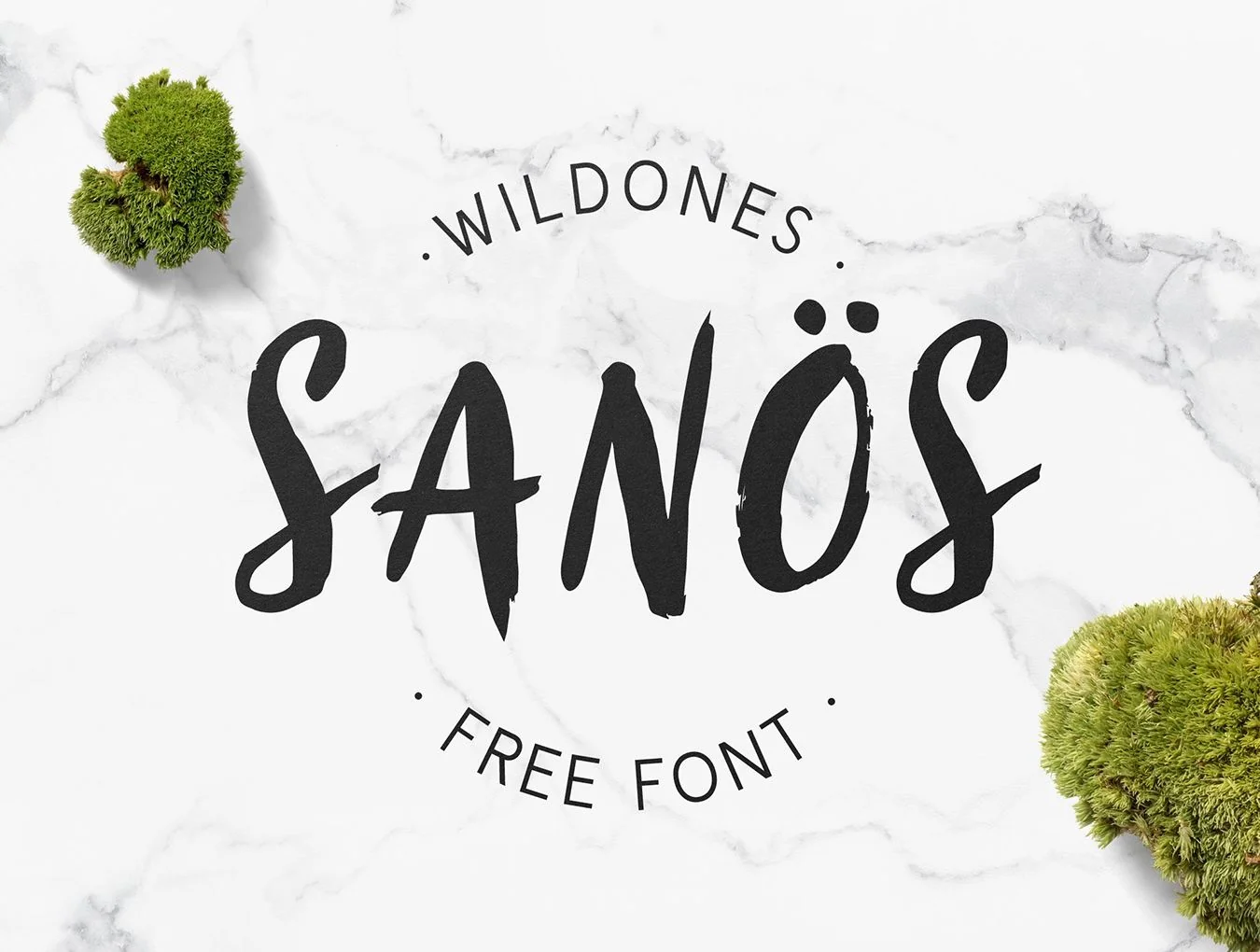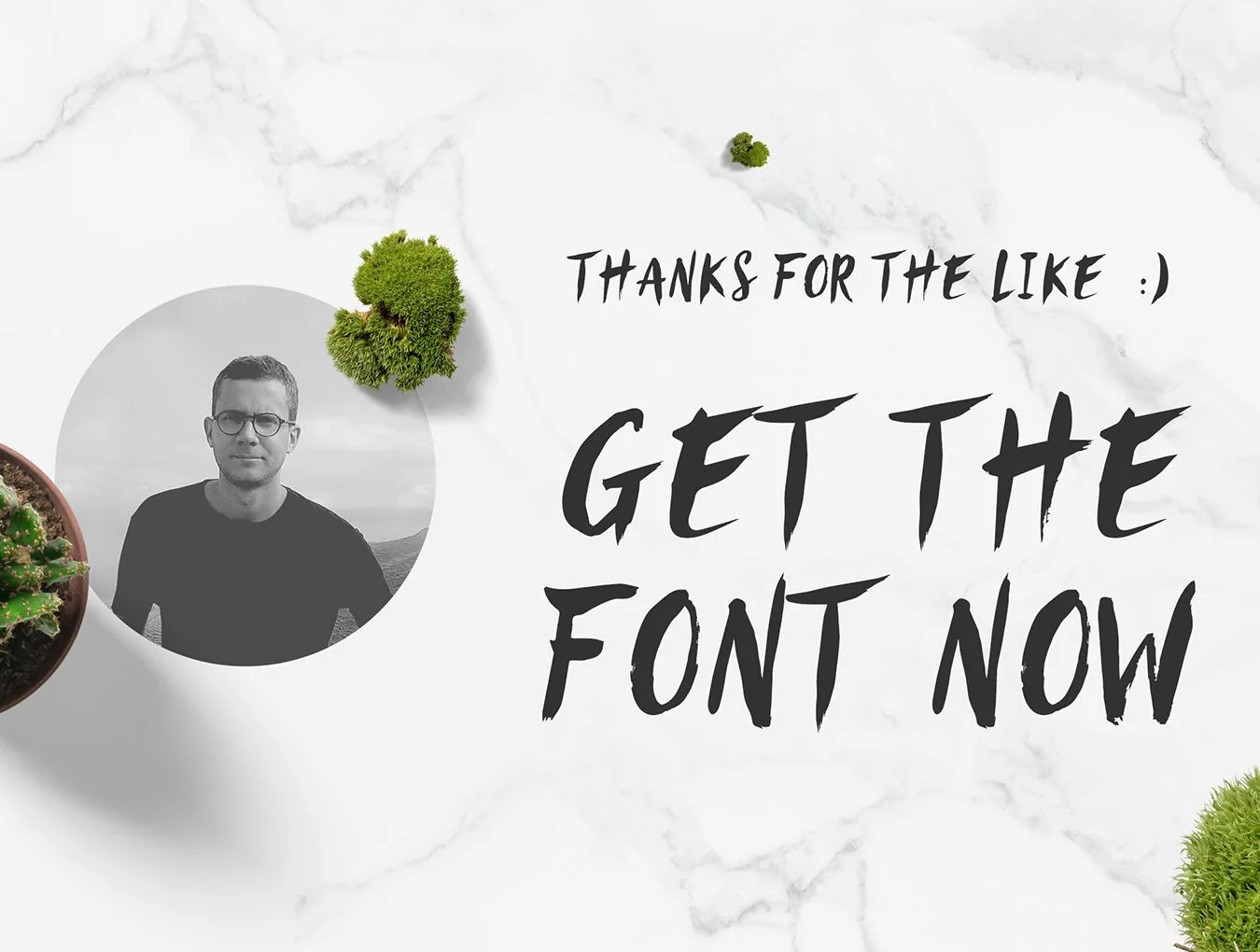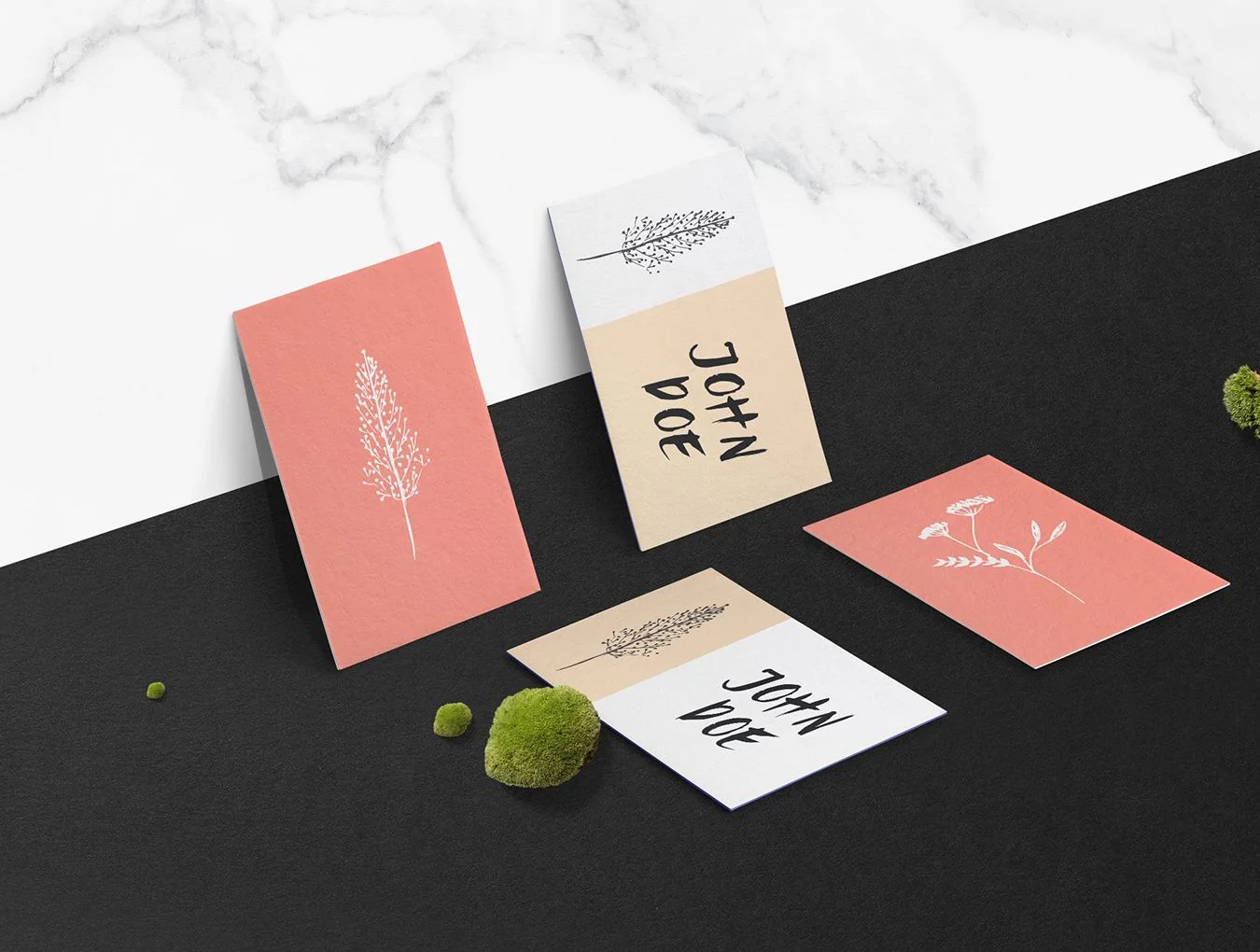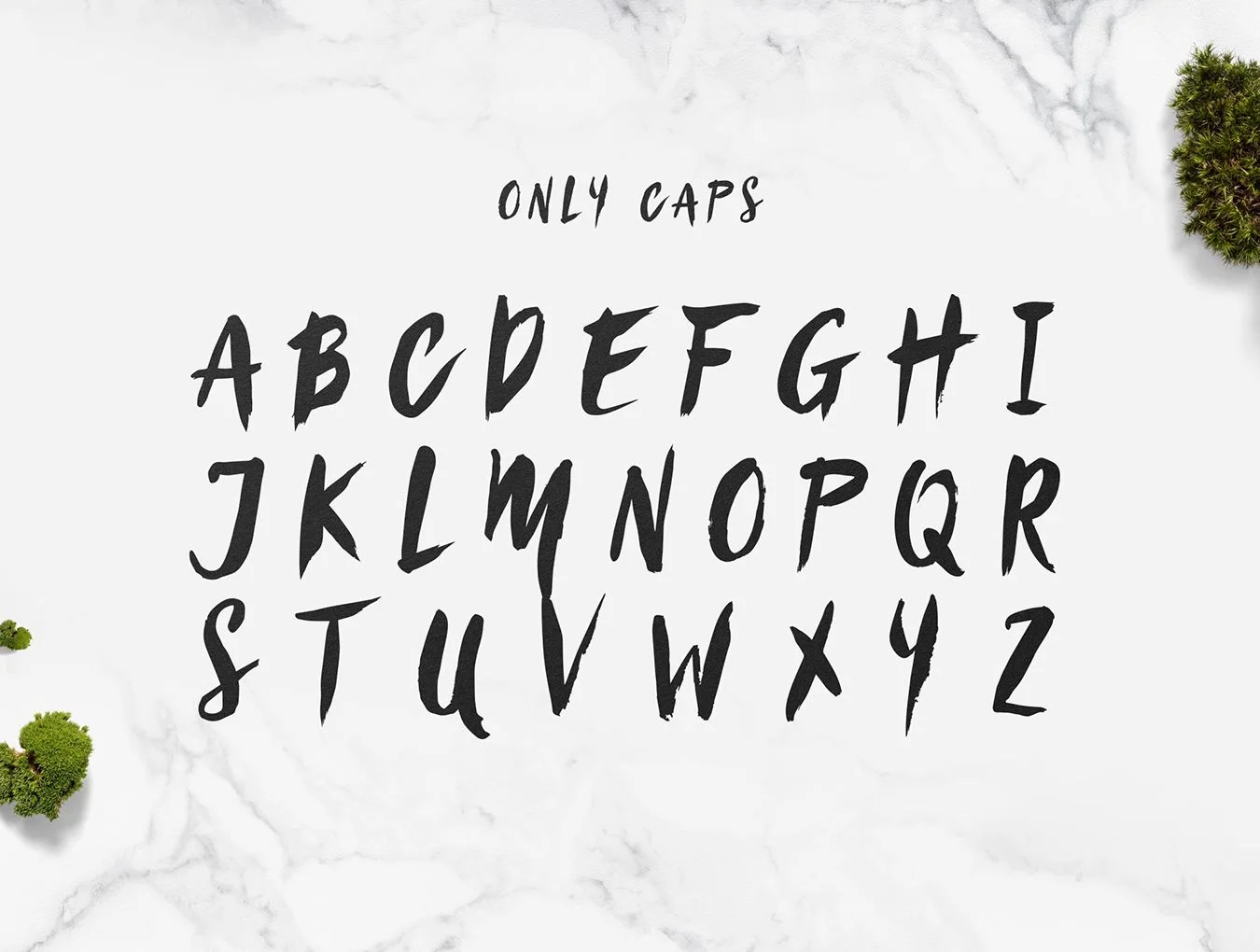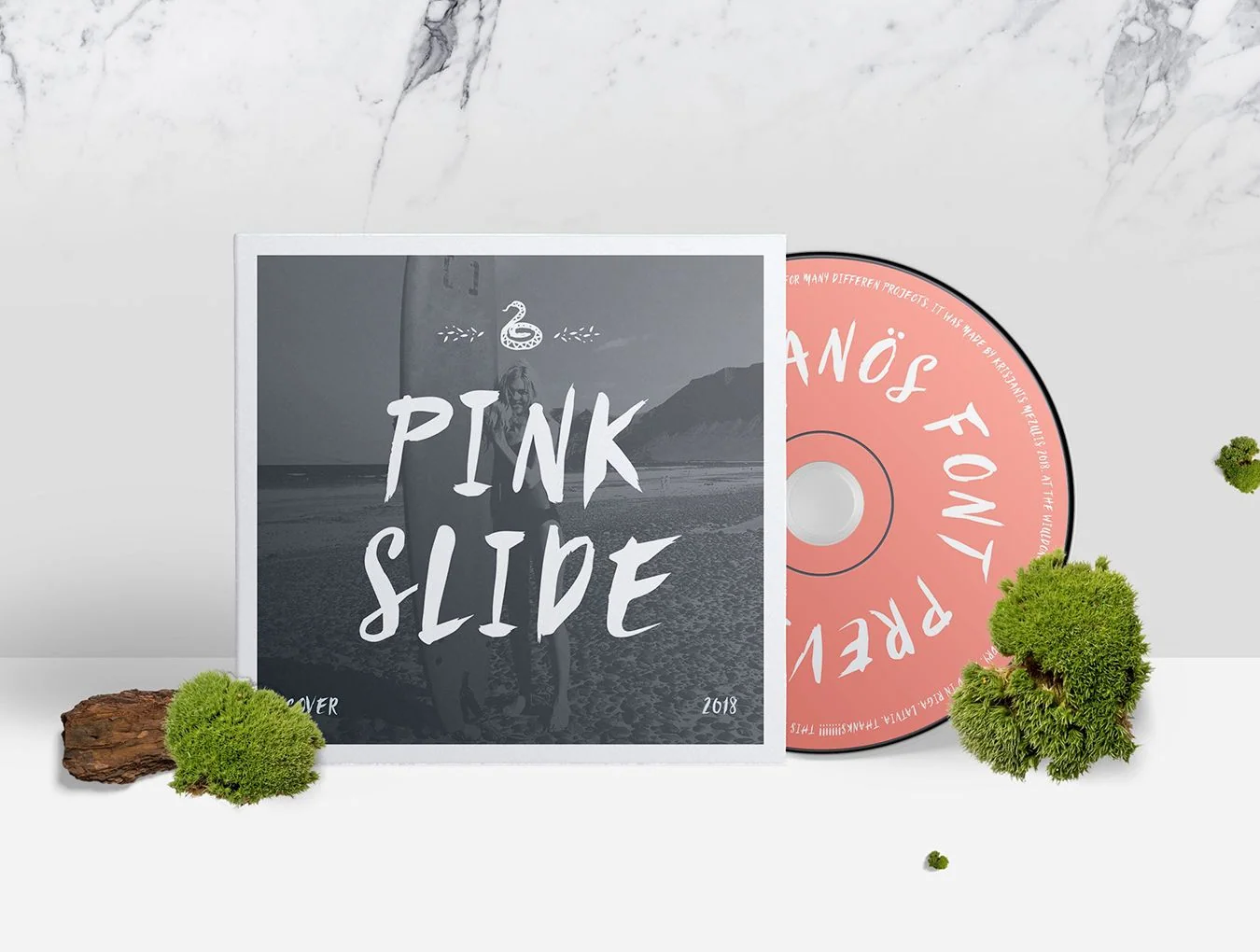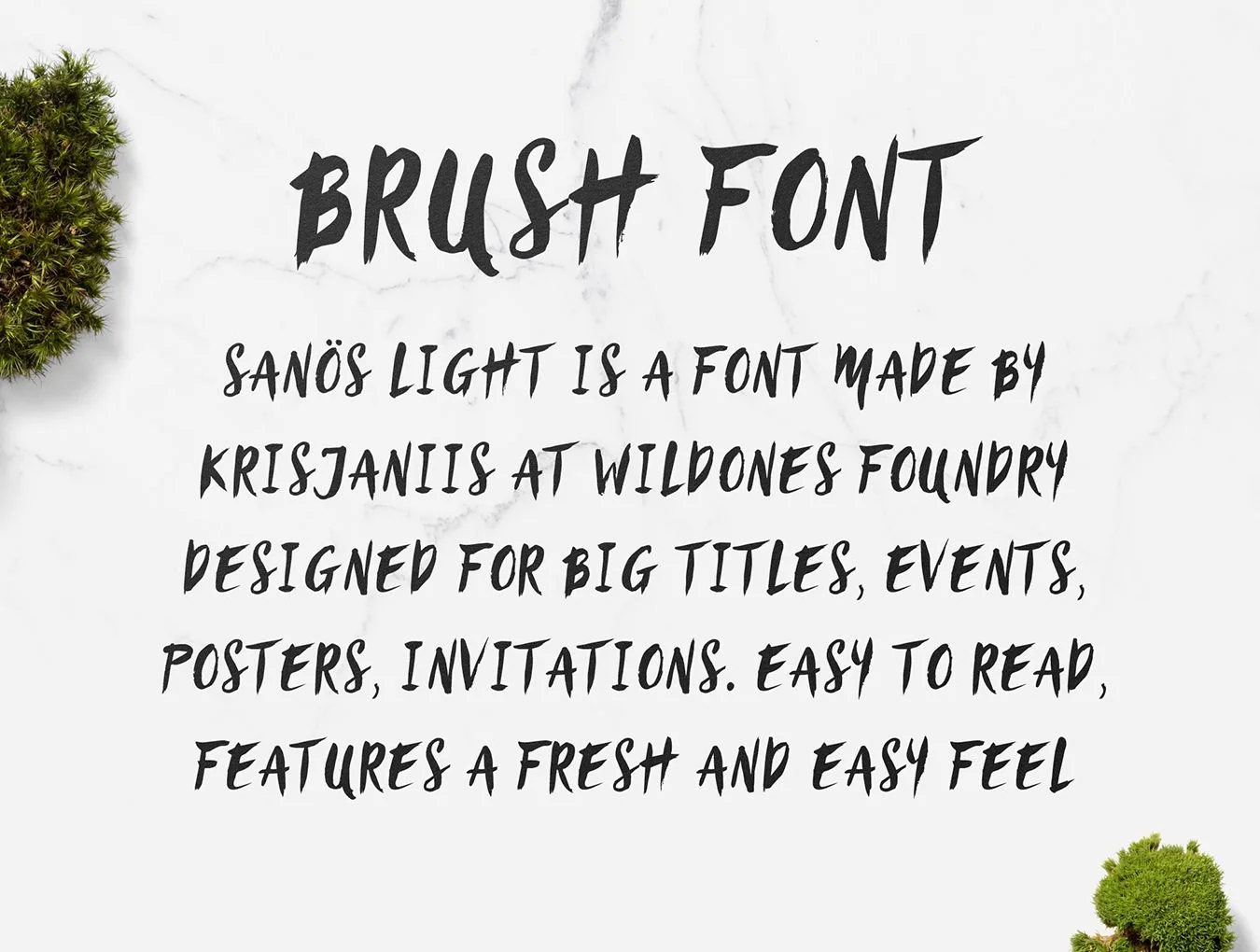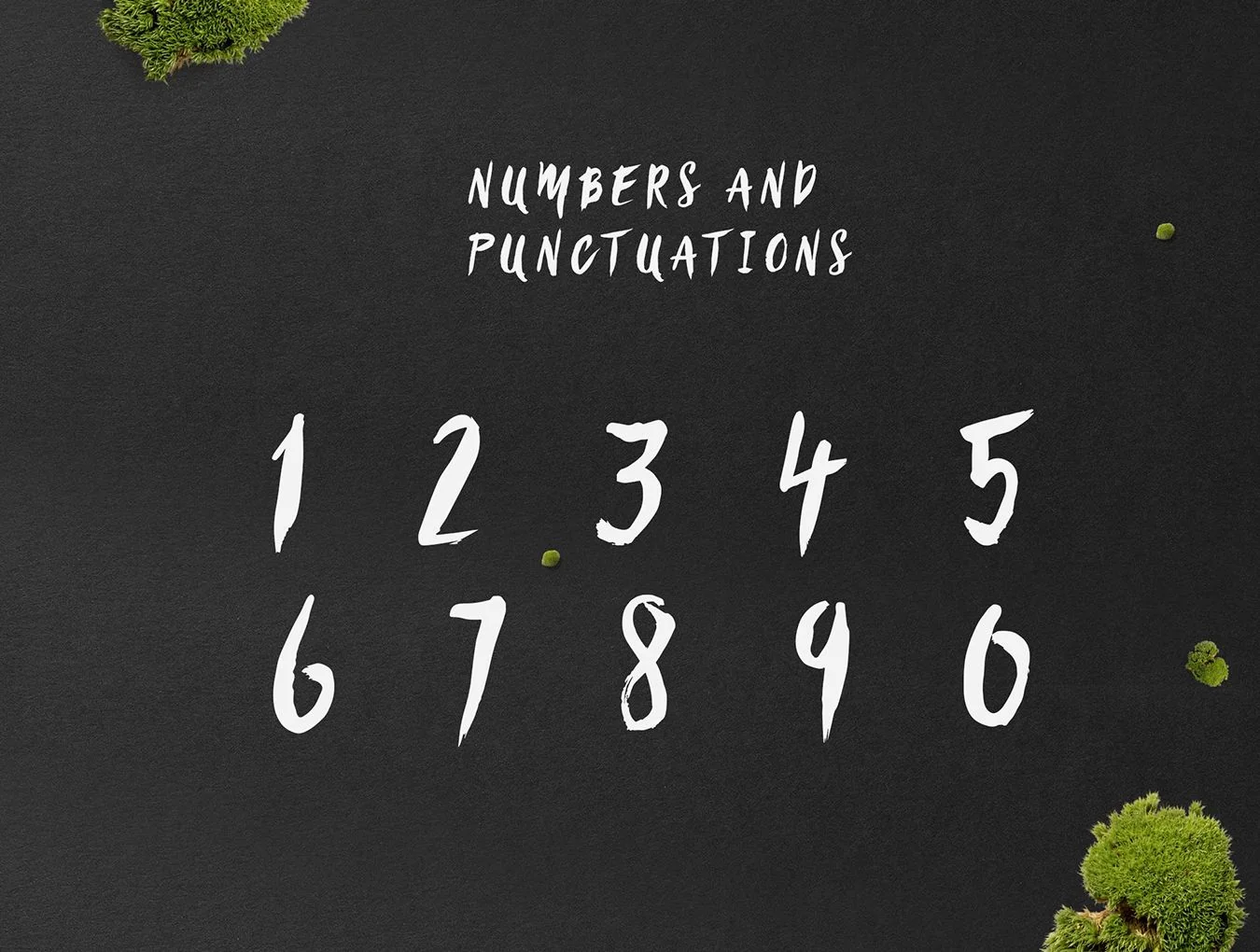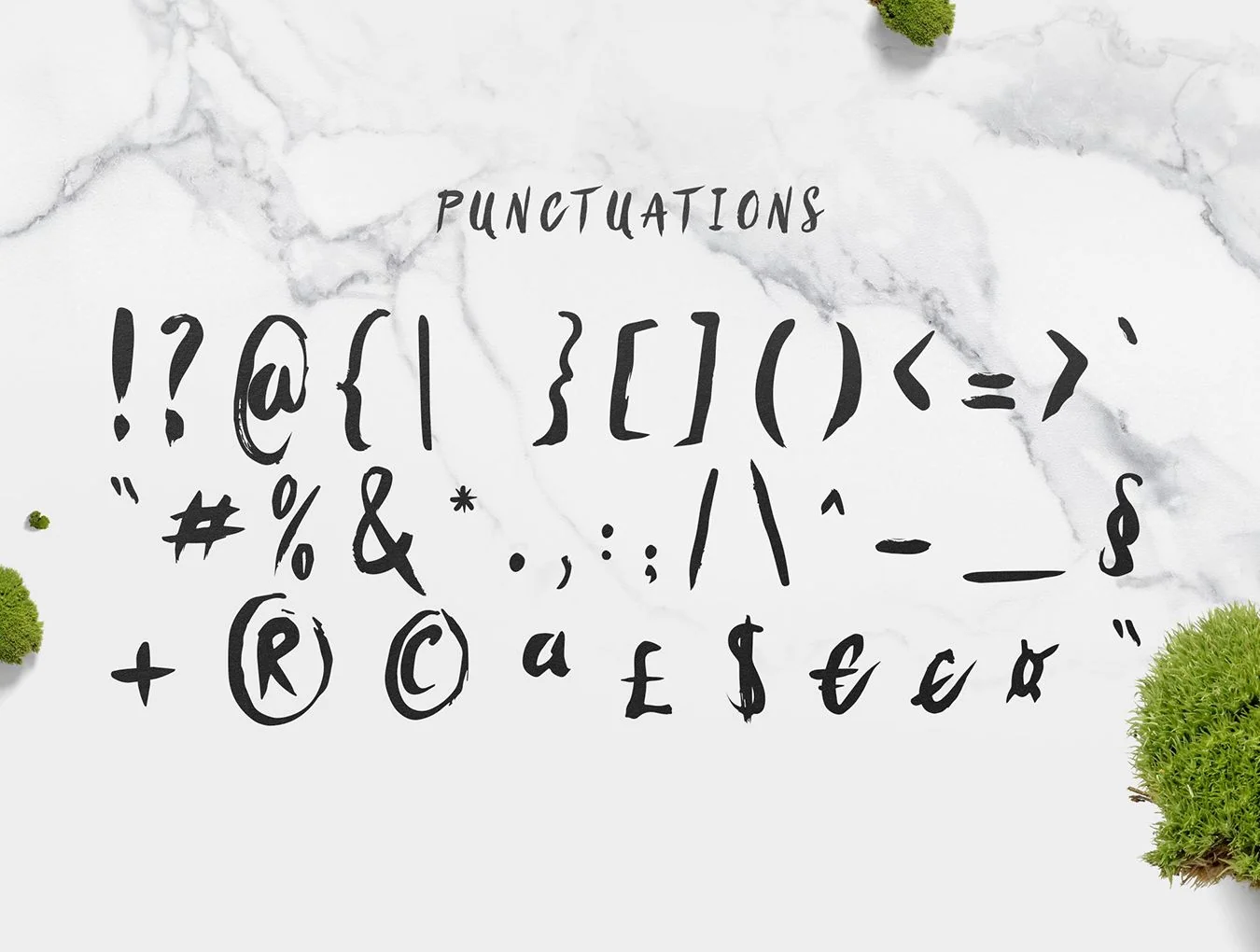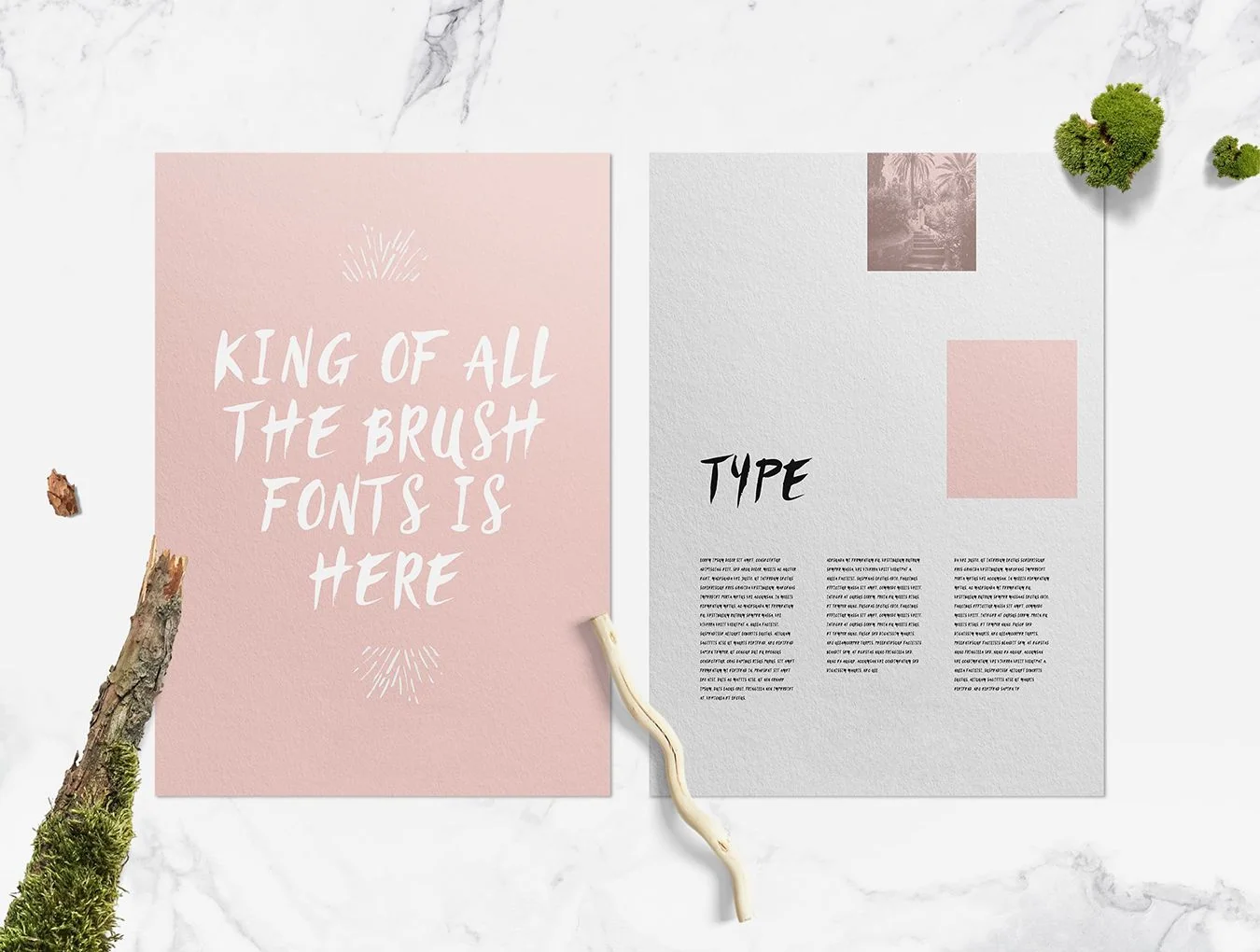
Sanös Brush Script
Sanös Brush Script Font suits projects needing a handwritten look.
Brush-style script lettering
Elegant visual style
Sanös Free Brush Script Font suits handwritten-style designs and includes .TTF plus .WOFF files for use in websites and apps. This brush script typeface is ideal for fashion, beauty, food, clothing, magazines, film, TV, marketing, advertising, and web projects, helping give your work a more polished look.